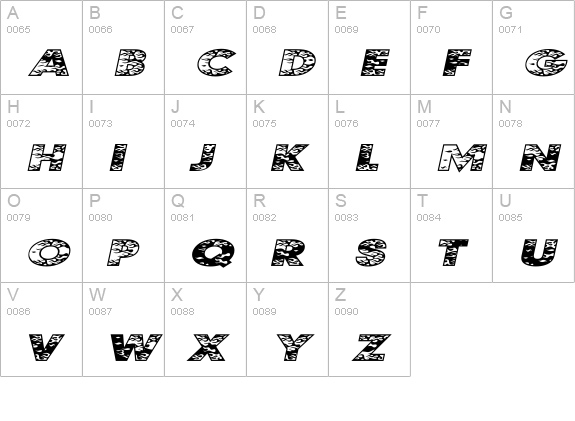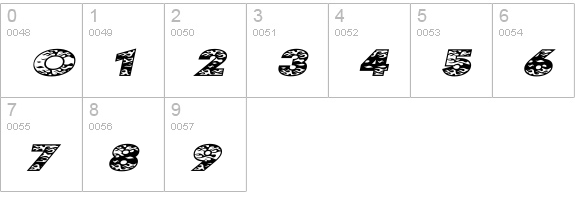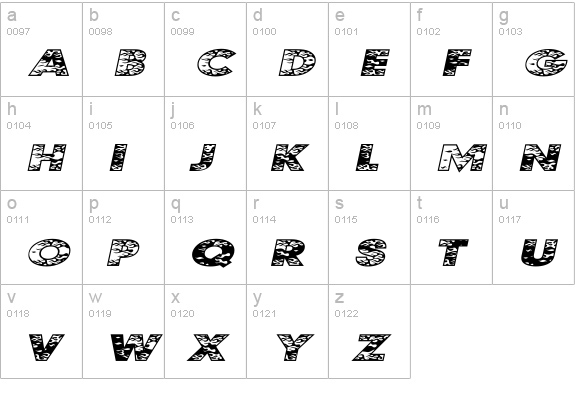
Kustom Kar Font Details
Kustom Kar font is a bold and retro typeface that exudes vintage charm and automotive flair. With its strong, angular letterforms and stylish curves, this font is perfect for adding a touch of nostalgia to your designs. Whether you're working on a project related to classic cars, rockabilly culture, or simply want to inject some personality into your work, Kustom Kar font is the ideal choice. What's even better is that Kustom Kar font is available for free download at FontsMarket.com. This means you can easily add this unique typeface to your collection without any cost. So go ahead and give your designs a cool, retro vibe with Kustom Kar font today!